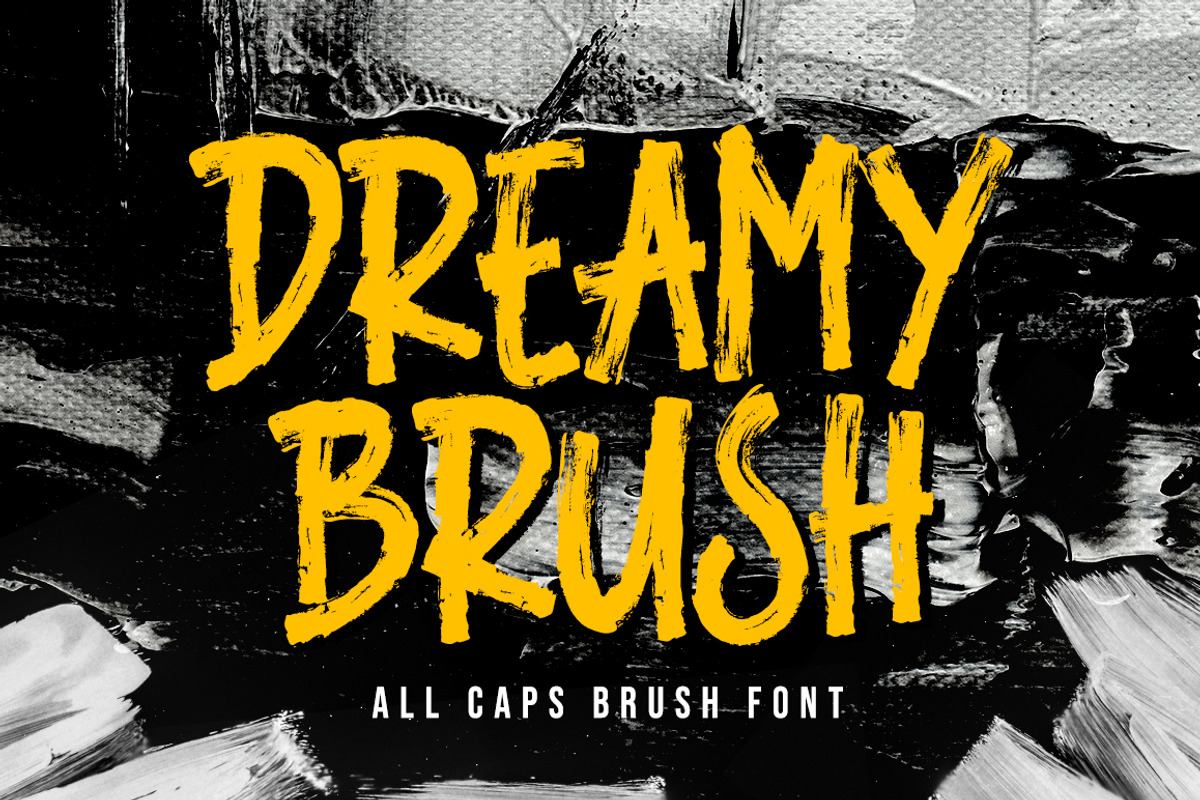
Dreamy Brush Font Free Download is an expressive and artistic handwritten typeface with bold brush strokes and a relaxed, organic feel. This font is perfect for projects that need a personal touch, including branding, posters, social media graphics, greeting cards, and artistic designs.
The fluid, brush-style lettering of Dreamy Brush gives your typography a natural, whimsical feel while maintaining a sense of creativity and fun. Whether you're creating dreamy invitations, casual brand messaging, or vibrant art prints, this font adds personality and charm to any design.